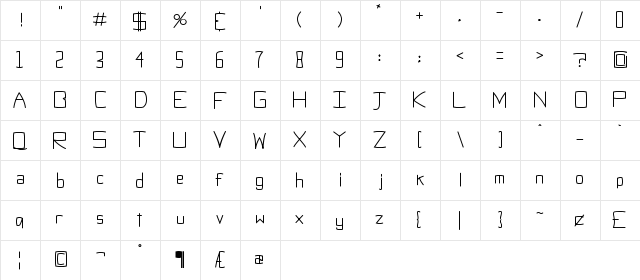
Obti Sans Regular
| Designer | Lewis Bauer |
Design Context for Obti Sans Typeface
Obti Sans takes a measured approach to typography — its balanced proportions and neutral character make it a reliable workhorse for both digital and print work.